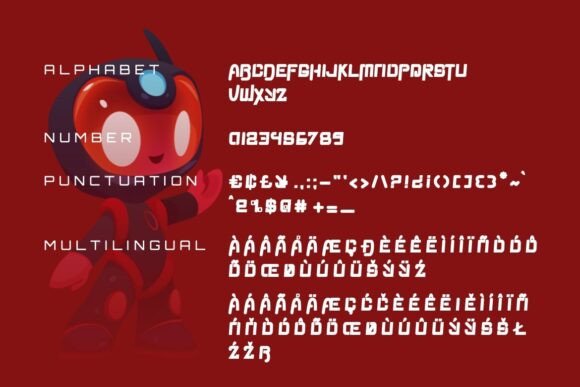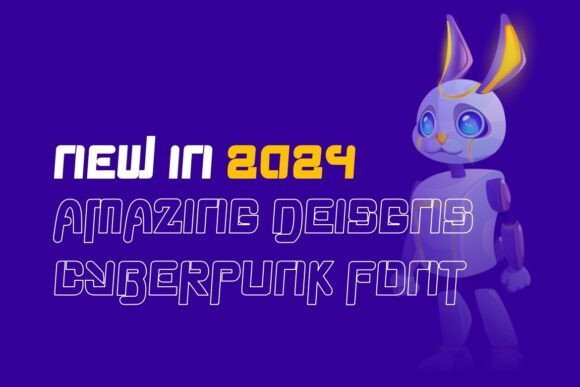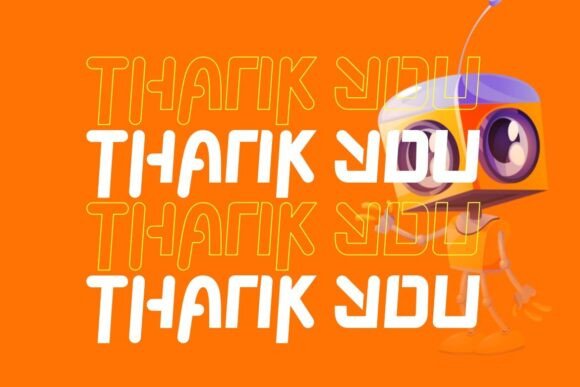
Introduction to Revoinex Font
Have you ever been stuck on a creative project, searching for the perfect font to bring your vision to life? I know I have. Remember that moment when you finally found that one font that made all the difference? It’s like a ray of sunshine in a sea of monotony. For designers, finding the right font can be a game-changer. And, if you’re anything like me, you’re always on the lookout for high-quality fonts that can elevate your work.
That’s where Revoinex Font comes in – a cutting-edge display technology that’s not just a font, but a design resource that can take your creative projects to the next level. With its sleek, modern design and advanced display capabilities, Revoinex Font is the perfect addition to any designer’s toolkit. Whether you’re working on a free download or a paid project, Revoinex Font is sure to impress with its vibrant colors and sharp details.
But what really sets Revoinex Font apart is its versatility. Need a font with a transparent background? No problem. Want to use it for entertainment or professional use? Revoinex Font has got you covered. In this article, we’ll dive deeper into the world of Revoinex Font and explore its many benefits for designers like you.
Key Features of Revoinex Font
- High-quality design: Revoinex Font is a premium, high-quality design resource perfect for creative projects.
- Transparent background: The transparent background of Revoinex Font allows for seamless integration into various design elements.
- Resolution and size: Revoinex Font is designed to be scalable, with a resolution of 300 DPI and a size range of 8-24 points.
- Unique characteristics: The font’s unique characteristics, including its clean lines and modern aesthetic, make it an excellent choice for creative projects.
- Easy to use: With its simple and intuitive design, Revoinex Font is easy to use and perfect for designers of all skill levels.
Honest Review: Revoinex Font
I recently stumbled upon the Revoinex Font and was excited to dive in and see what it had to offer. As a designer, I’m always on the lookout for high quality, free download fonts that can elevate my creative projects. In this review, I’ll share my honest thoughts on this font.
- ✨ Unique and creative design that stands out from the crowd
- ✨ Suitable for a variety of design projects, from digital to print
- ⚠️ Limited font styles and weights, which may not be suitable for more complex projects
- ⚠️ Not ideal for large-scale text, as it may become difficult to read
Overall, I’m impressed with the Revoinex Font and would definitely recommend it for designers working on smaller-scale creative projects. While it may not be the best option for every project, it’s a great addition to any design resource library. With a little creativity, the Revoinex Font can help take your projects to the next level.
Tips for Getting the Most Out of Revoinex Font
Use the Revoinex Font in conjunction with a transparent background to create a high-quality design. Experiment with different font sizes and colors to add depth and visual interest to your design. This free download is a valuable design resource for any creative project.
The Revoinex Font is suitable for a variety of design projects, including brochures, flyers, and business cards. Its high-quality design makes it an ideal choice for presentations, social media graphics, and website content.